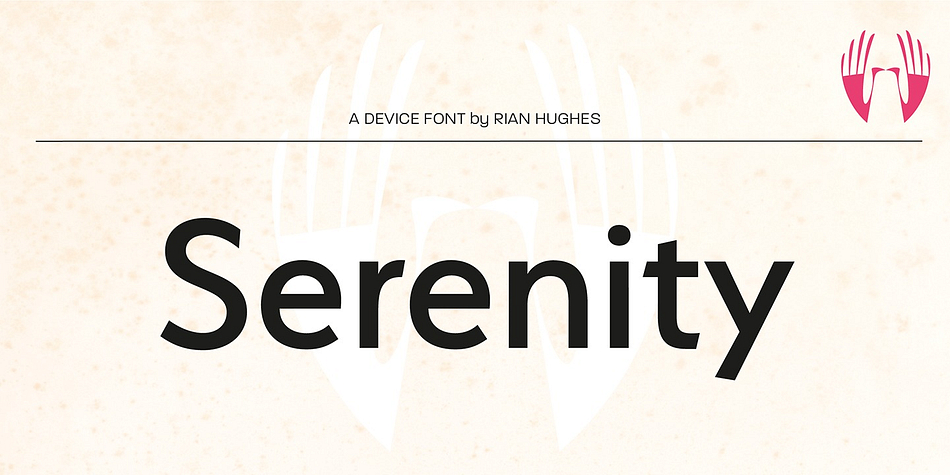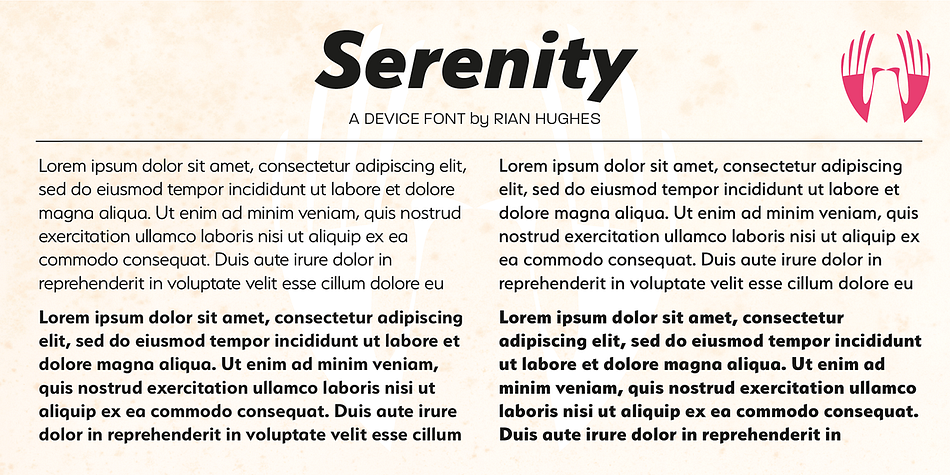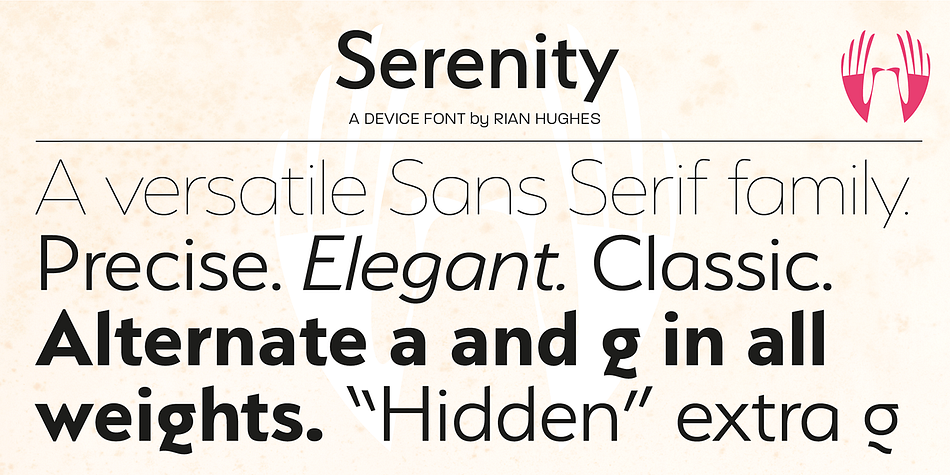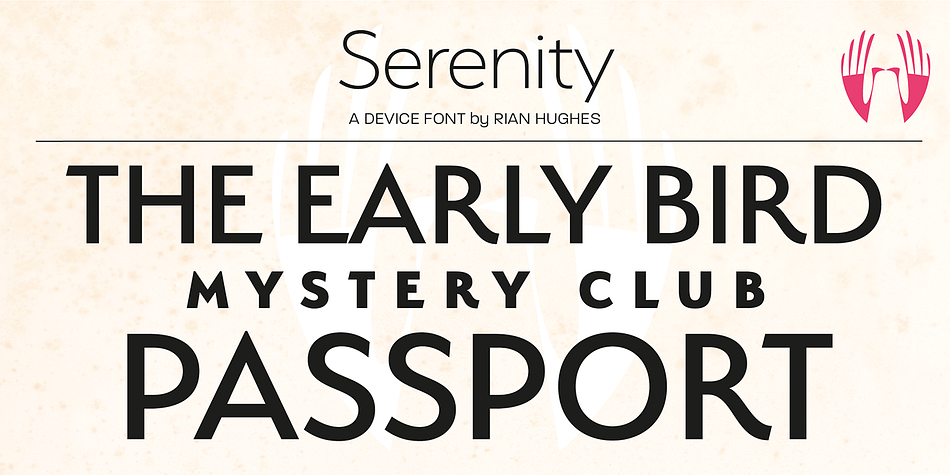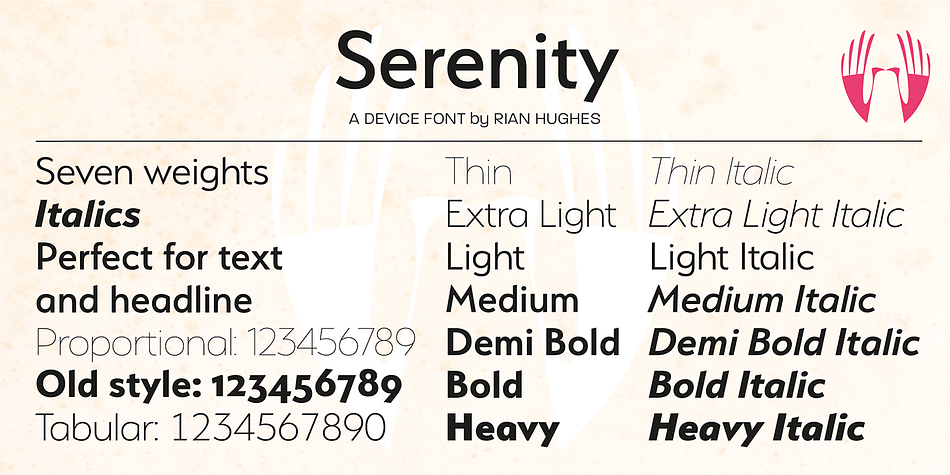
Designed by Rian Hughes, Serenity is a sans serif font family. This typeface has fourteen styles and was published by Device.
A versatile and elegant sans serif with a hint of Futura and a dash of Gill, but entirely its own design.
Clear and legible in small sizes, refined and authoritative in larger sizes, Serenity is perfect for corporations, institutions, museums, galleries, editorial and publishing.
Seven weights from a fine Thin to an impactful Heavy, plus italics, present a full range for all text and headline needs.
Comes with full international character support, tabular and old-style numerals and alternate versions for the R, K, a and g.